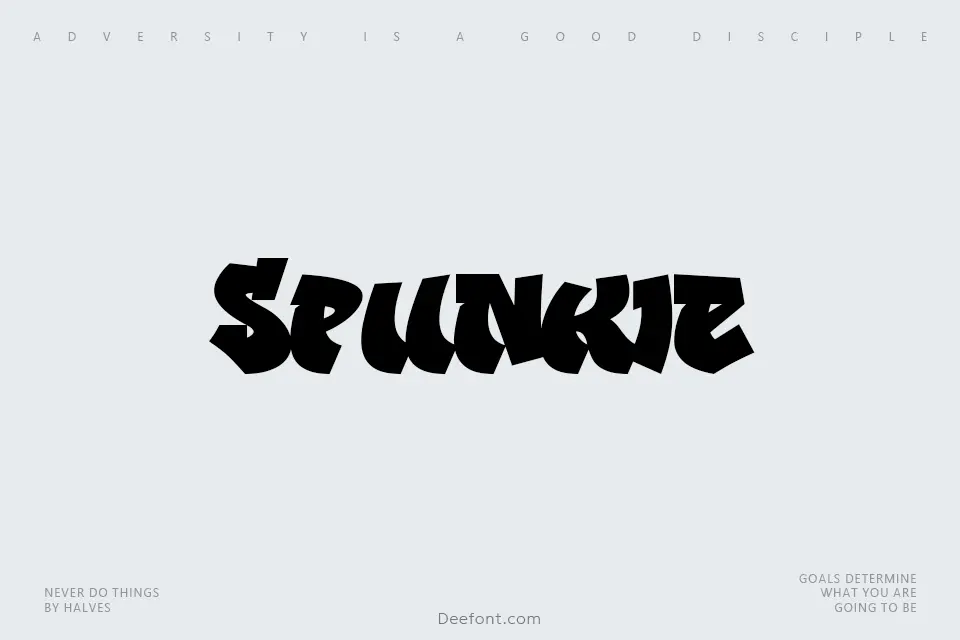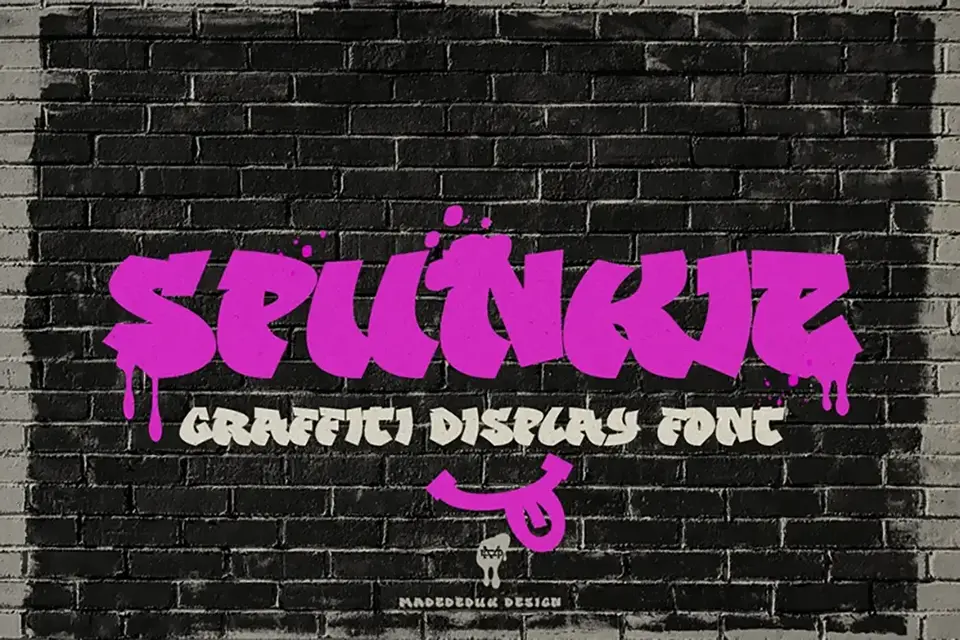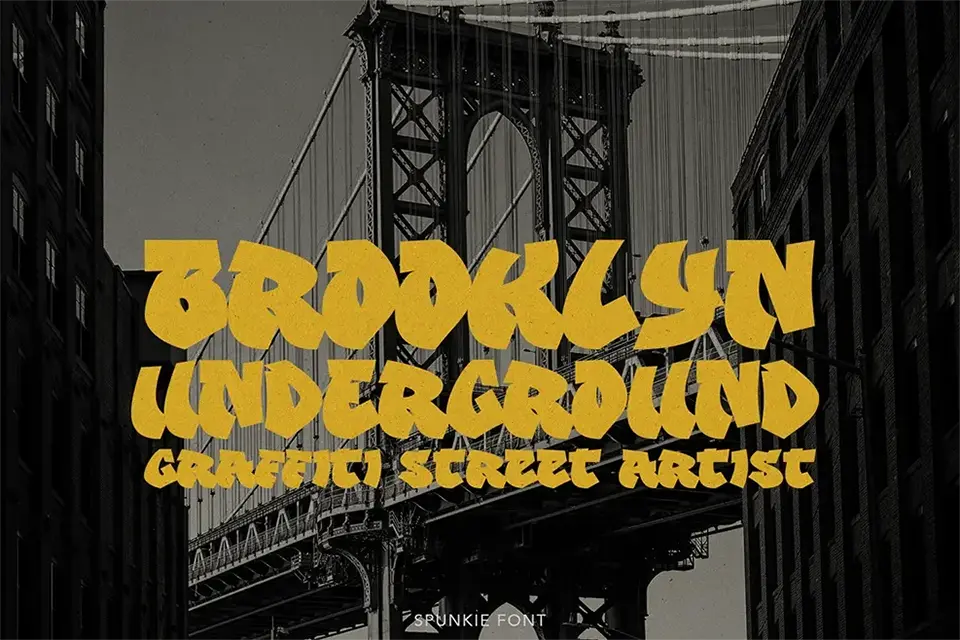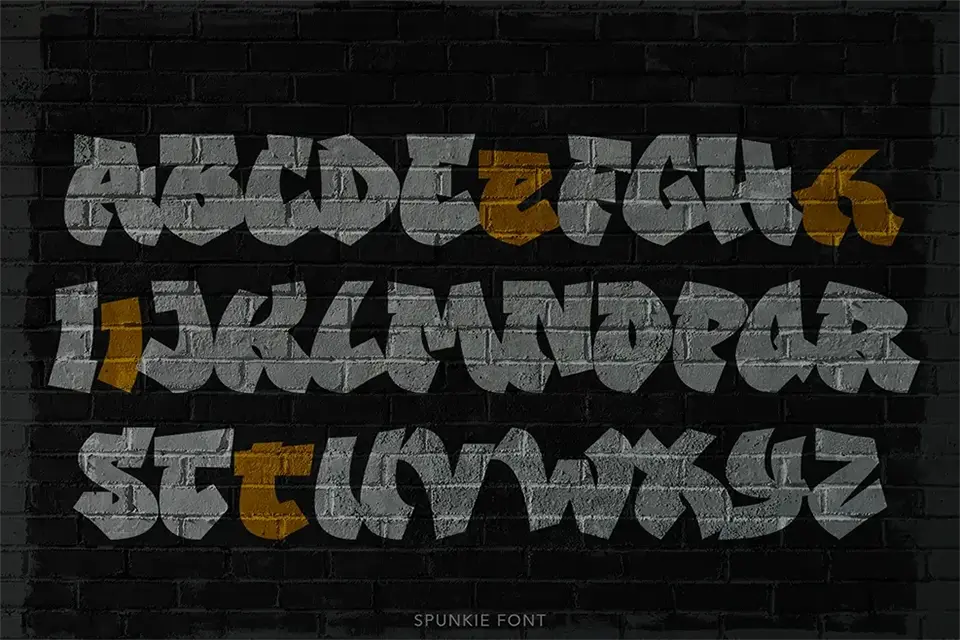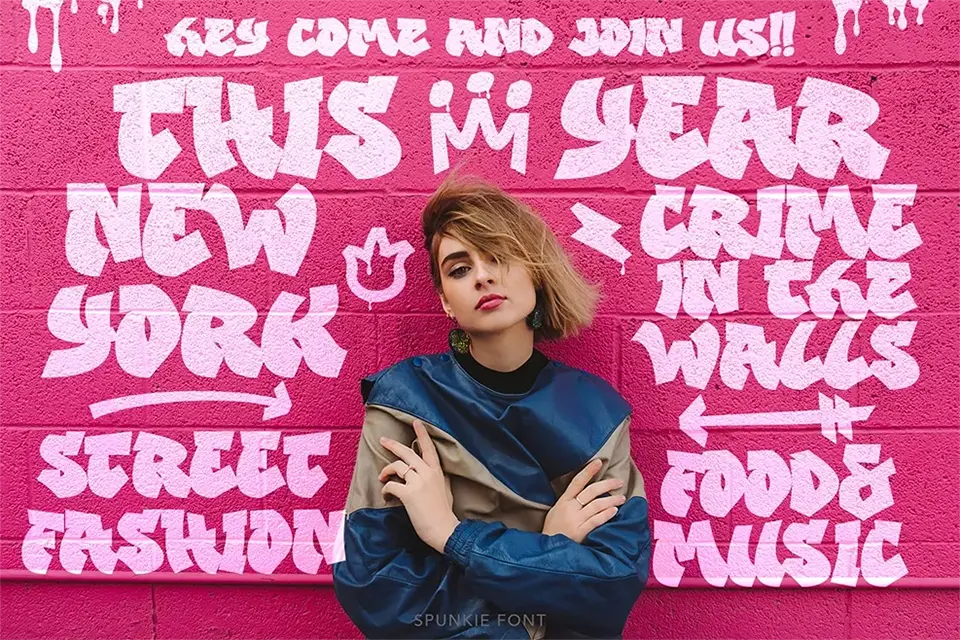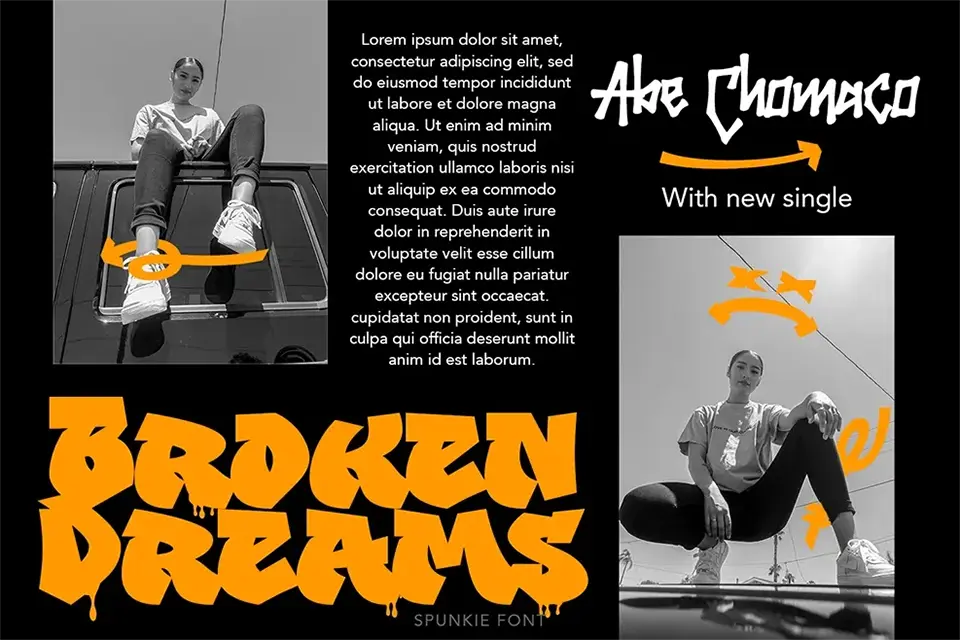
Spunkie Font
Spunkie is a vibrant graffiti font inspired by 90s street hip-hop style, offering clear and unique letterforms perfect for bold creative projects. This playful typeface combines distinctive character with versatile functionality, making it ideal for logos, stickers, packaging design, headlines, brand identity, t-shirts, posters, magazines, and social media graphics.